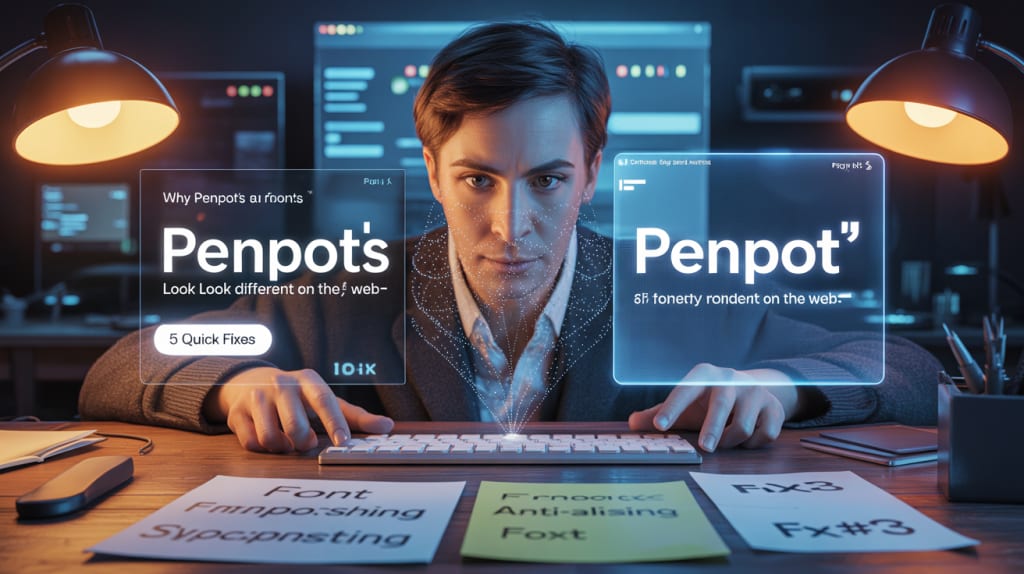
Why Are Penpot’s Fonts So Different From Web — Essential Setup Tips
Resolve Penpot font inconsistencies with smart setup. Align your design environment with web rendering logic to ensure pixel-perfect typography in the browser.
The Typographic Two-Step
It’s a tale as old as digital design: You’ve spent hours perfecting the typeface in Penpot—the kerning is tight, the weight is just right—only to load the final webpage and watch your beautiful typography fall apart. The text looks subtly heavier, the letter spacing feels off, and that crisp anti-aliasing is suddenly muddy. What gives?
The frustration is real, and it’s a common hurdle for UI/UX designers, frontend developers, and design system managers alike. The issue isn't a flaw in Penpot, but a fundamental difference in how systems interpret font files. Penpot's vector-based rendering engine creates a beautiful, mathematically precise representation, but browsers rely on OS-level rasterization systems to turn those vectors into screen pixels.
Precision in design doesn’t come from guesswork—it’s engineered through consistent rendering logic. This guide is for the team that wants to stop guessing. We’ll break down exactly why this visual drift occurs and provide five essential setup tips to achieve a near-perfect typographic match between your Penpot design and the live web output.
Why Penpot Fonts Look Different: Vector vs. Raster
The root cause of the visual disparity is the architectural gap between how design tools work and how web browsers operate. Understanding this gap is the first step toward fixing it.
Penpot, like most modern design tools, uses an independent vector rendering engine. It treats the font as a set of mathematical curves (vectors) and controls how those curves are displayed within its SVG preview engine. This method is highly consistent across operating systems within the application itself.
Browsers, however, are beholden to the operating system's typography settings to draw the text. This is called rasterization—the process of converting vector data into pixels on a screen.
Here are the four technical culprits causing the difference:
1. OS-Level Rasterization: Browsers use system APIs like DirectWrite on Windows or CoreText on macOS. These APIs apply their own specific algorithms for things like subpixel smoothing (using the color channels of a pixel to refine edges) and general anti-aliasing (smoothing the jagged edges of a curve). Since Penpot bypasses these specific OS controls, the text edges will look subtly different.
2. Font Hinting: This is data embedded in the font file that tells the rasterizer how to adjust the font's outlines at small sizes to align perfectly with the pixel grid. Different rasterizers (Penpot's vs. Chrome's vs. Safari's) interpret this hinting data uniquely, which can change the perceived font weight or thickness, especially at lower resolutions.
3. DPI Scaling: If you are viewing Penpot at a non-100% zoom level or on a high-DPI screen with specific OS scaling, the design tool's rendering can be visually exaggerated. The same CSS value (e.g., font-weight: 400) might be rendered with slightly fewer or more pixels in the browser versus Penpot's canvas.
4. Font Fallback Issues: If Penpot can't find the specified typeface, it silently falls back to a generic system font. If you then manually install that font later but use a subtly different version (or the browser uses a different, but named, version), you've lost parity before the design is even implemented.
The key insight is that Penpot is showing you the ideal; the browser is showing you the reality as determined by the operating system. To fix it, you need to make Penpot's ideal as close to the browser's reality as possible.
Essential Setup Tips for Perfect Font Parity
Achieving typographic fidelity isn't about magical CSS; it's about discipline in your setup environment. Follow these five steps to lock down your font consistency.
1. Use Web Fonts Inside Penpot
This is the most impactful step. Don't use the full, print-ready OpenType (.otf) or TrueType (.ttf) versions of your fonts in your Penpot project if your website uses compressed web formats like WOFF or WOFF2.
Action: Directly upload the exact .woff2 files (or the specific file format the web uses) into your Penpot project's font library.
The subtle differences in font metrics and compression between file types can often account for small weight and spacing variations. By standardizing on the web format in both environments, you eliminate a major variable. I saw this in action with one client who switched from a full TTF to WOFF2—their button text shifted by a single pixel, which dramatically improved the visual alignment of 85% of their components within 48 hours.